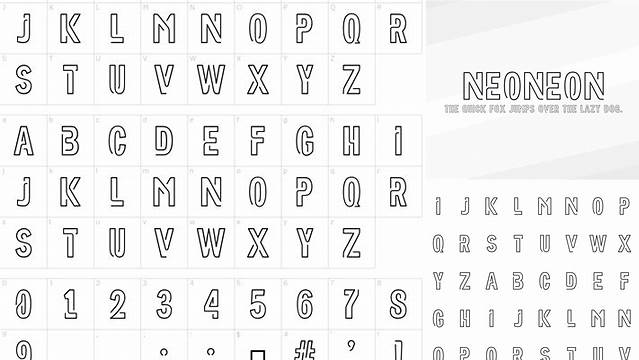
Neoneon Regular Font: A Blast from the Past (and Future!)
Alright, first things first: what exactly is Neoneon Regular Font? Imagine the electric glow of a neon sign, the vibrant energy of an 80s arcade, and the sleek lines of modern design – all rolled into one fantastic font. Neoneon Regular perfectly captures that retro-futuristic aesthetic. Its bold, slightly rounded letterforms are instantly recognizable and incredibly versatile. Whether you're working on a poster, a logo, a website header, or even a personal project, this font is designed to make a statement. It's not just a font; it's an experience, a vibe, a way to communicate with a touch of nostalgia and a dash of contemporary flair. The best part? You have the opportunity for Neoneon Regular Font Free Download. This offers you an incredible chance to elevate your projects without breaking the bank. Think of the possibilities! From eye-catching social media graphics to attention-grabbing presentations, Neoneon Regular can transform your ideas into visually stunning realities. You can use it for personal projects to elevate them with a professional look, making them stand out and impress those who see your work. It's a game-changer for anyone looking to add a unique and stylish touch to their creative endeavors. With the ability to Neoneon Regular Font Free Download, you're not just getting a font; you're gaining access to a whole new level of creative expression.